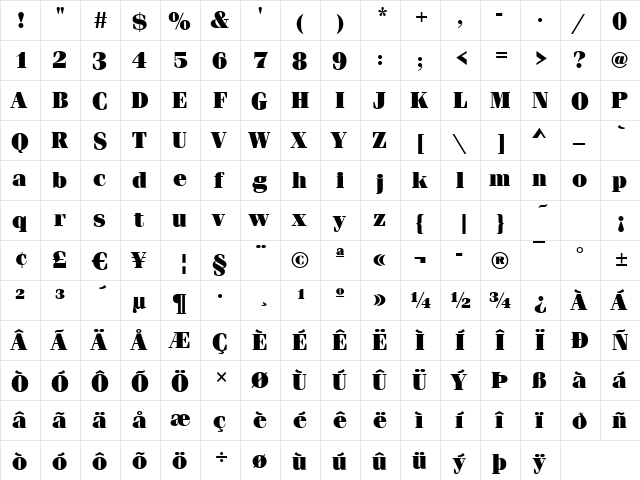
Ferrara-Ultra Regular
Design Context for Ferrara-Ultra Typeface
Ferrara-Ultra is a composed and adaptable typeface that performs quietly and consistently across a wide range of design contexts.